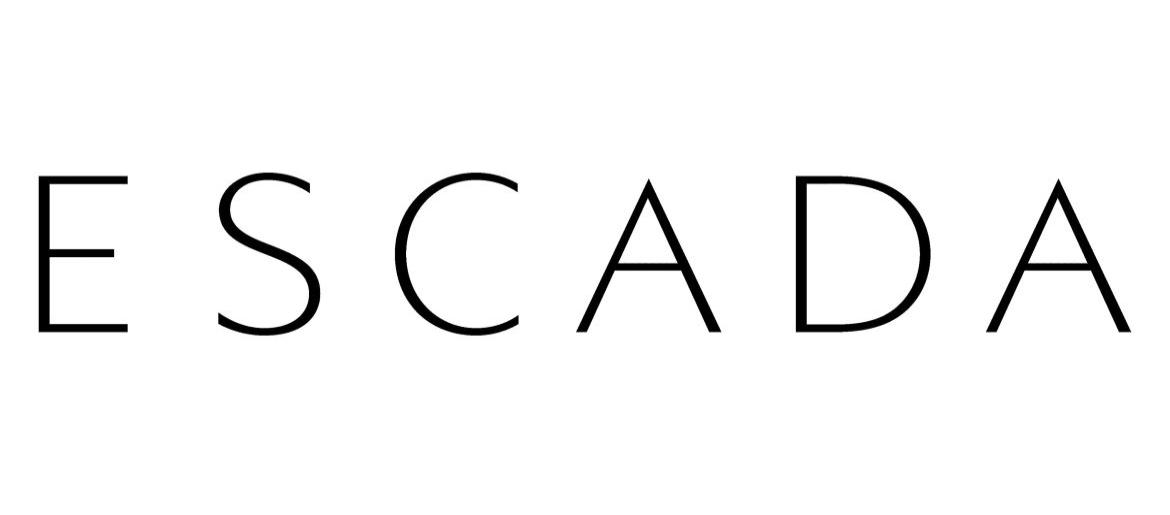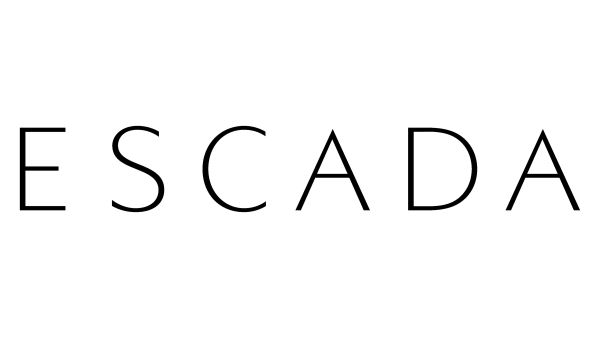
Escada Font
What Font is Escada?
Escada Font exudes elegance and sophistication, much like the fashion house it represents. The typeface closely resembles Linotype Aroma Extra Light, a commercial font, though we’ve also found a free alternative that captures its refined essence. With its thin, graceful strokes and timeless letterforms, the Escada Font evokes luxury and femininity — making it ideal for fashion branding, high-end packaging, and editorial design that seeks to convey understated class and beauty.
About Escada
Escada is a renowned German luxury fashion brand founded in 1978 by Margaretha and Wolfgang Ley. Known for its bold colors, tailored silhouettes, and contemporary elegance, Escada became a global icon of women’s fashion throughout the 1980s and 1990s. The brand continues to blend modern trends with classic refinement, maintaining its reputation for empowering, high-fashion sophistication.